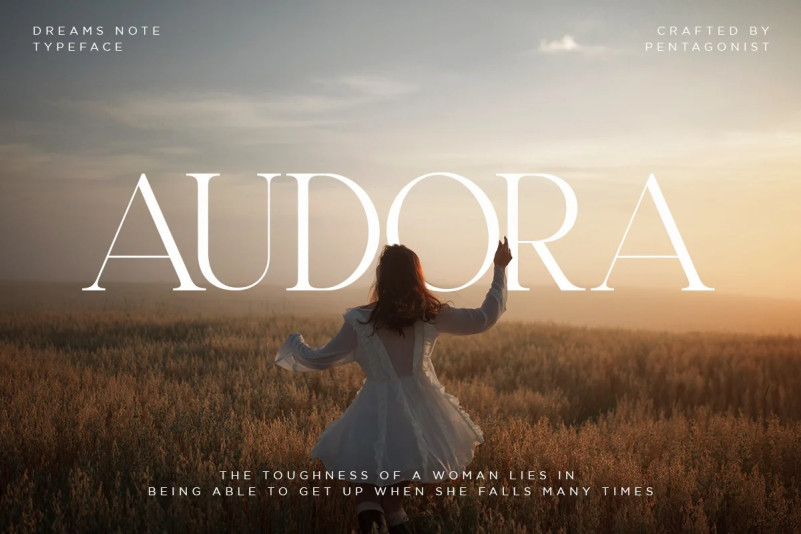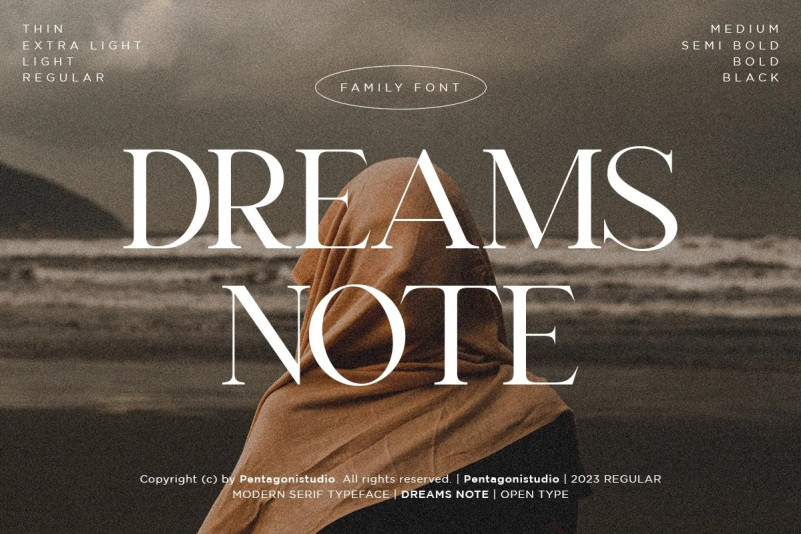
DreamsNote Font
Dreams Note Font – Is A Modern Family Font Serif Including 8 Font Style. It can easily be matched to an incredibly large set of projects, so add it to your creative ideas and notice how it makes them stand out!